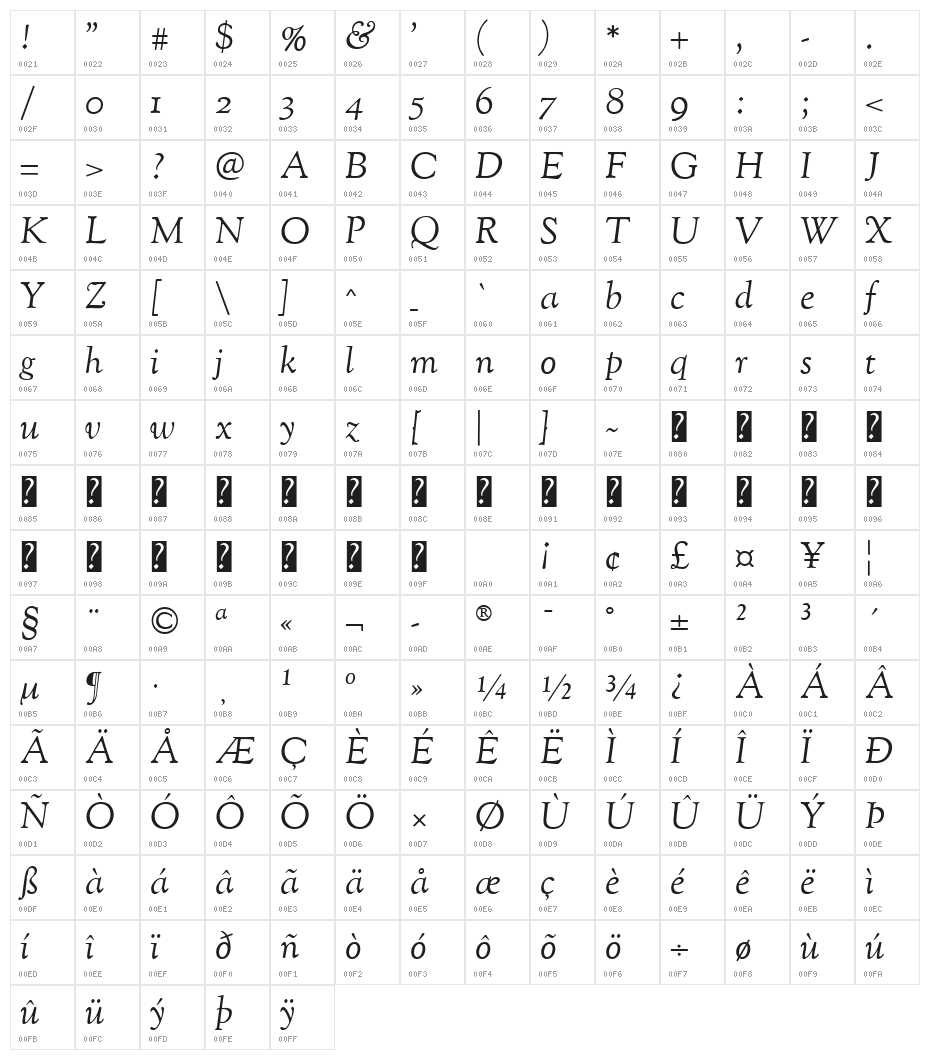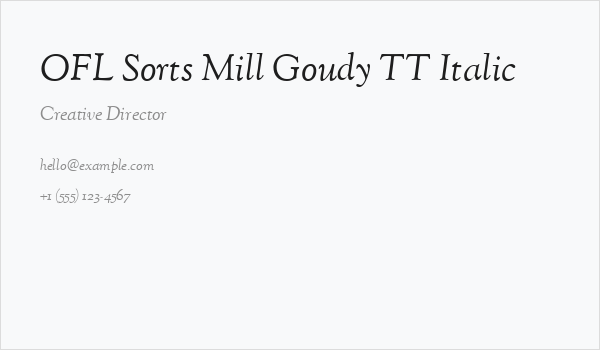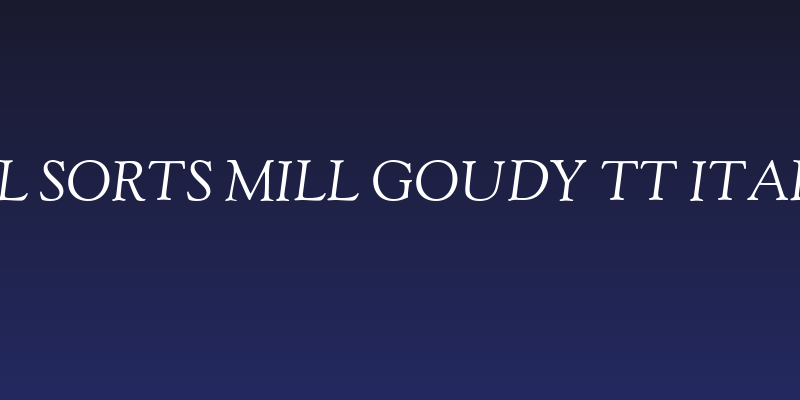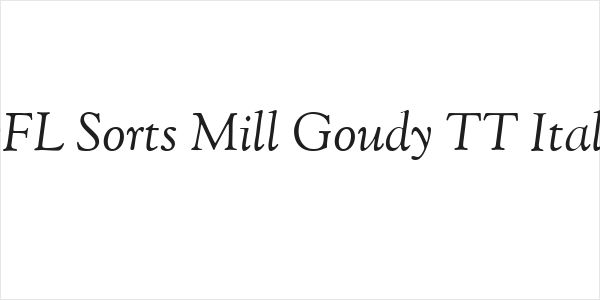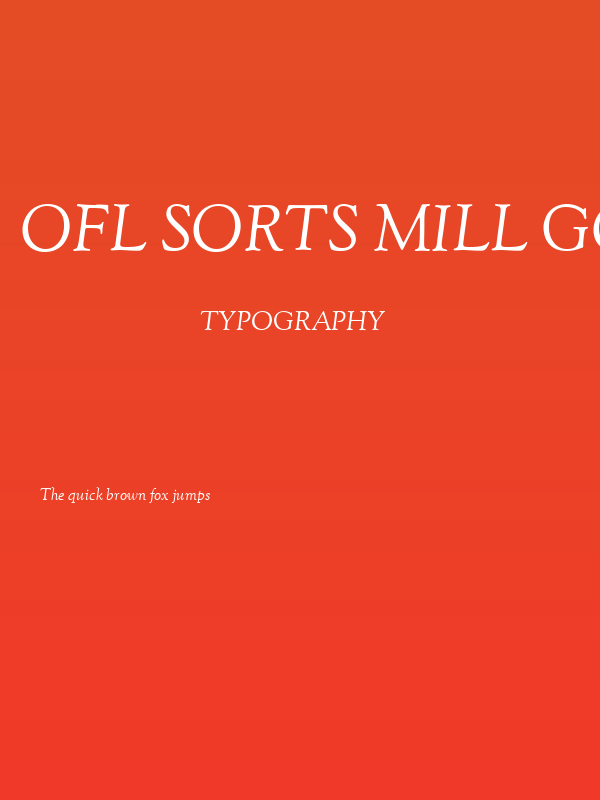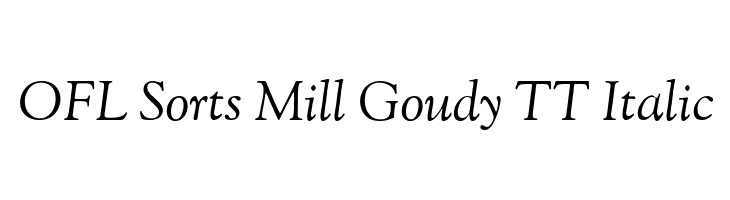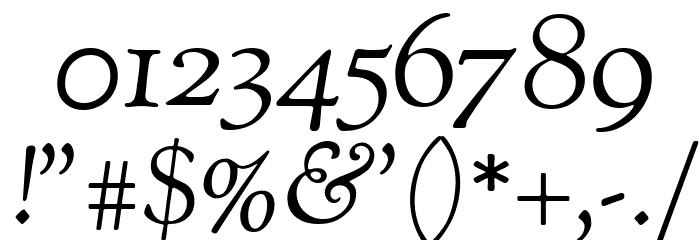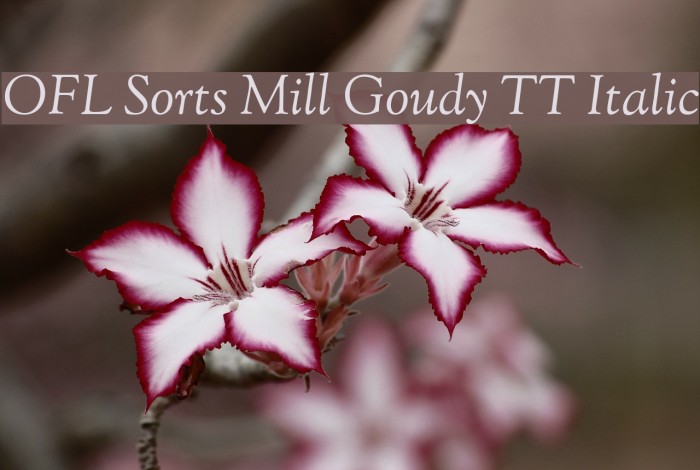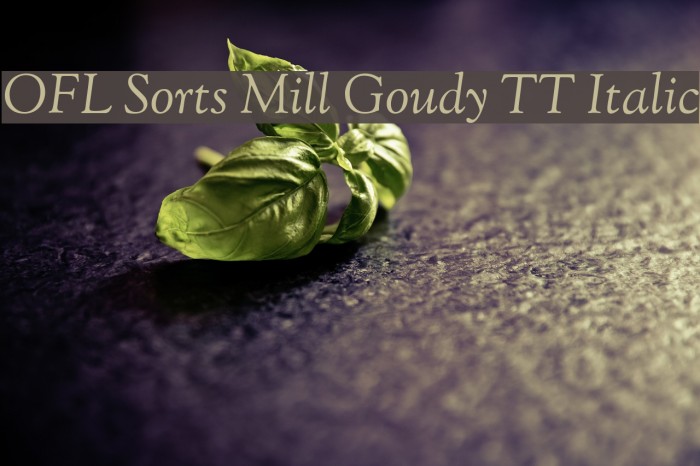
OFL Sorts Mill Goudy TT Italic Font
OFL Sorts Mill Goudy TT Italic Description
This font features an elegant and classic design with a distinct italic style. The characters exhibit a graceful slant, enhancing their sophisticated appearance. The serifs are finely crafted, adding a touch of traditional charm. The uppercase letters are well-proportioned, while the lowercase letters have a smooth flow, making them highly readable. The numerals are clear and consistent, complementing the overall aesthetic. Special characters are thoughtfully designed, maintaining the font's cohesive look. This font is ideal for projects that require a refined and timeless feel.
| Overall Style | Classic |
| Use Case | Headlines, Body text, Logos |
| Proposed Projects | Ideal for book covers, formal invitations, elegant branding, and editorial design. |